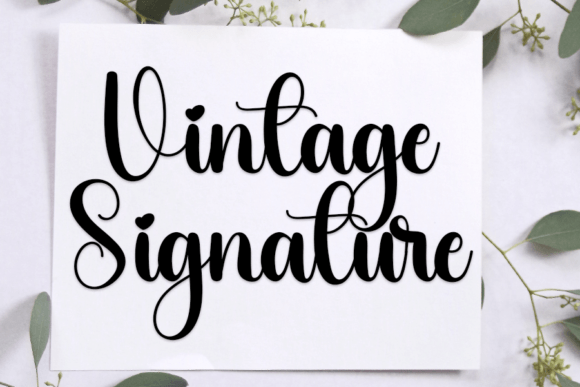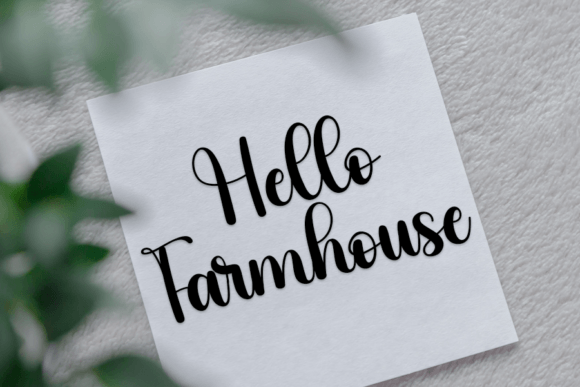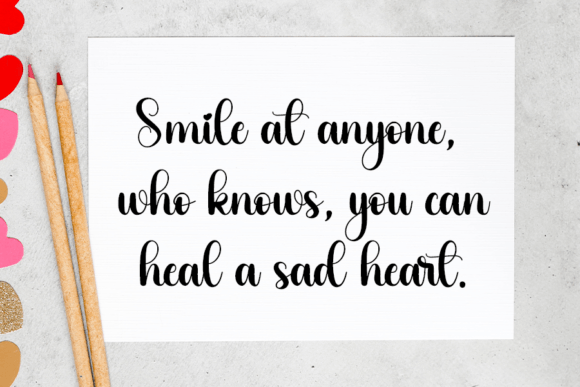
About the Cruise Font
Crafted with precision, the Cruise Font is ready to bring your ideas to life. Cruise is a delicate handwritten font carefully crafted for a cool and unique design. This font can be used to write letters, invitations, food products, titles and more.
Cruise excels in applications requiring a touch of casual elegance, such as wedding invitations, logos for boutiques or cafes, and short-form editorial pieces. Its delicate nature makes it ideal for headlines, short quotes, and packaging design where readability isn’t paramount over aesthetic impact. Avoid using Cruise for body text or extended paragraphs; its handwritten style can hinder legibility in large blocks of copy.
For optimal visual harmony, pair Cruise with a clean sans-serif like Montserrat for a contemporary feel, or a classic serif like Garamond for a more traditional balance. A playful script font could also work well for secondary text elements, adding a layer of visual interest without overshadowing Cruise’s delicate charm.
Cruise’s personality is best described as effortlessly chic and approachable. It conveys a sense of relaxed sophistication, making it suitable for brands aiming for a friendly yet refined image.